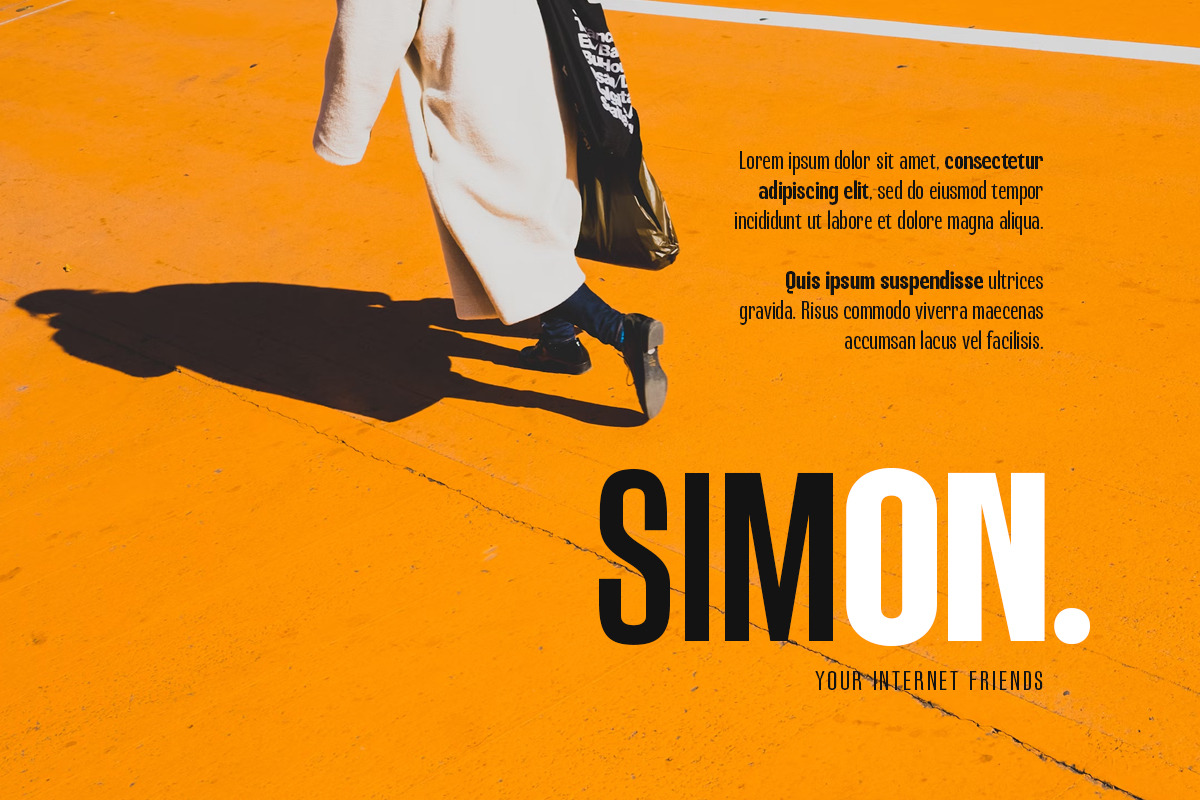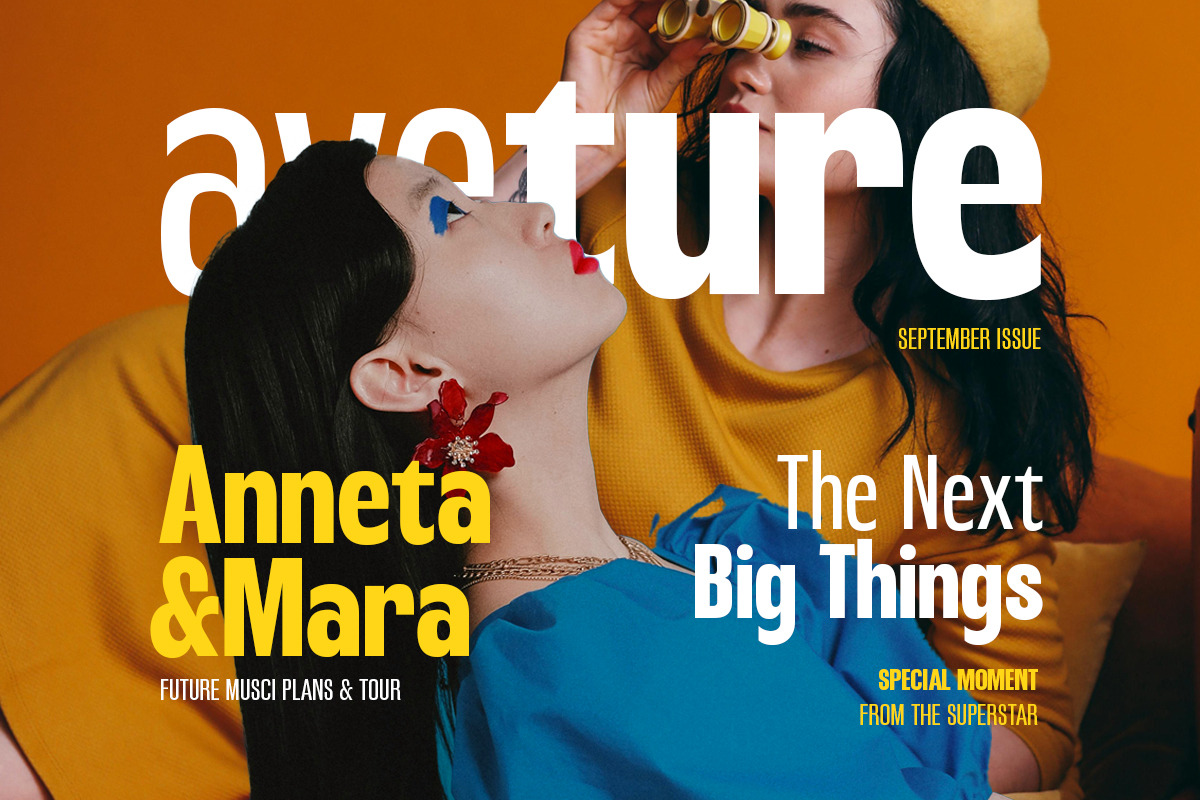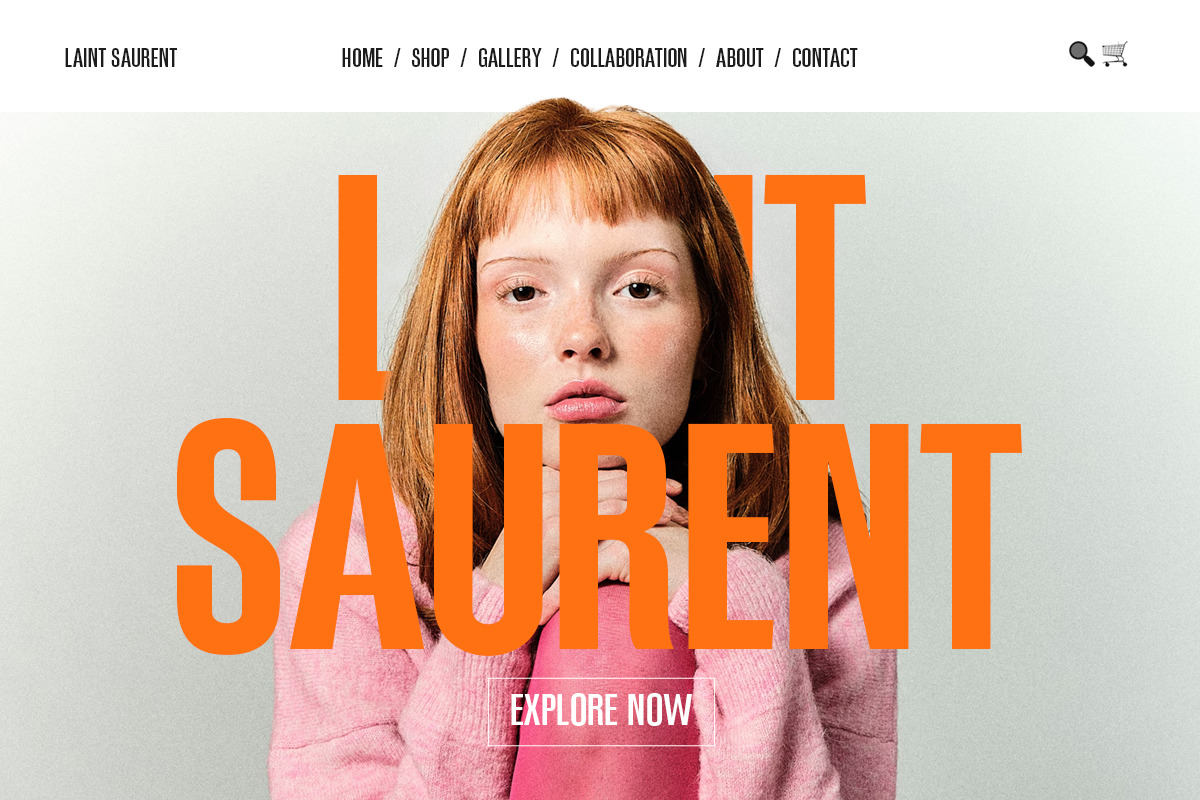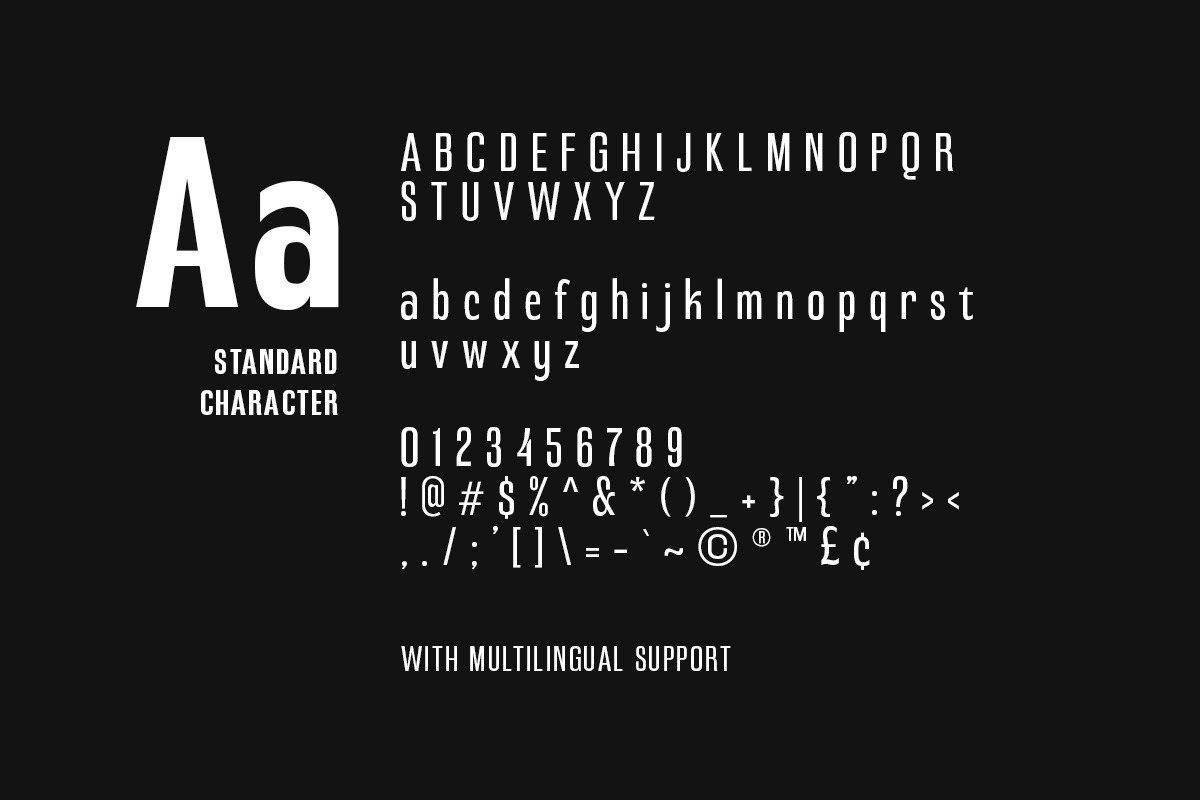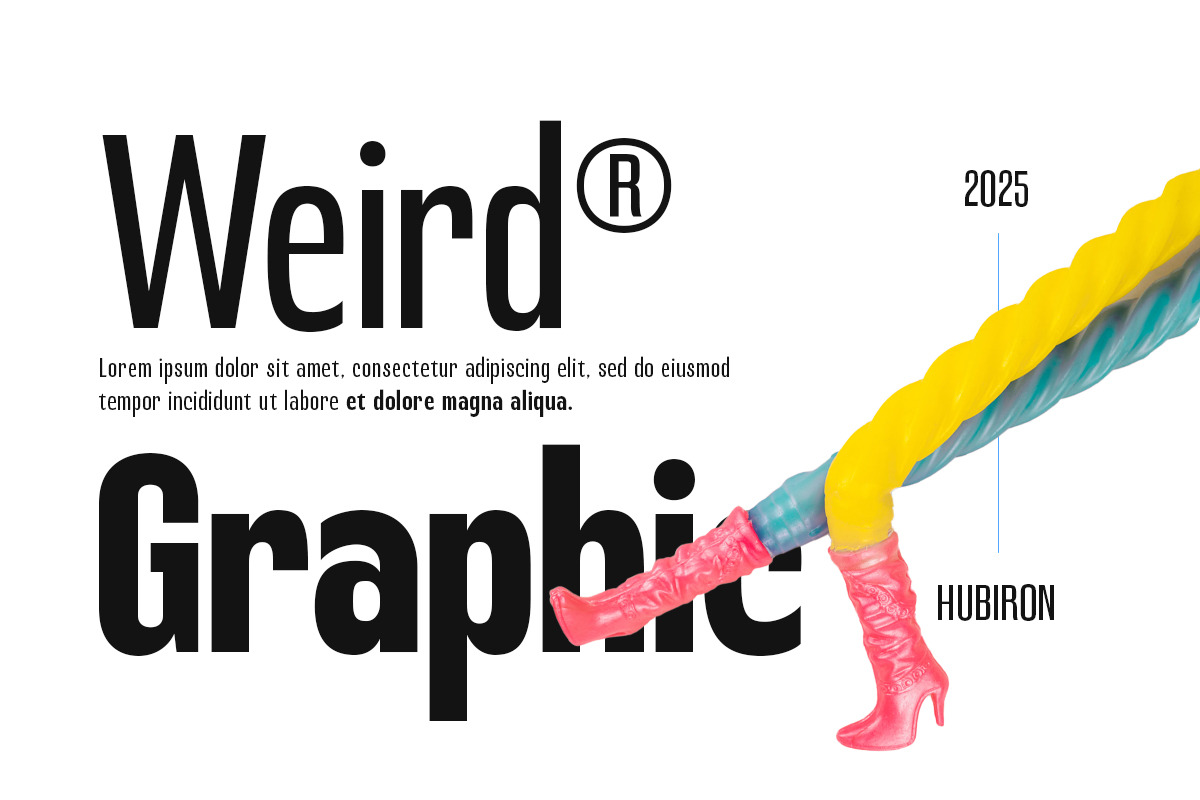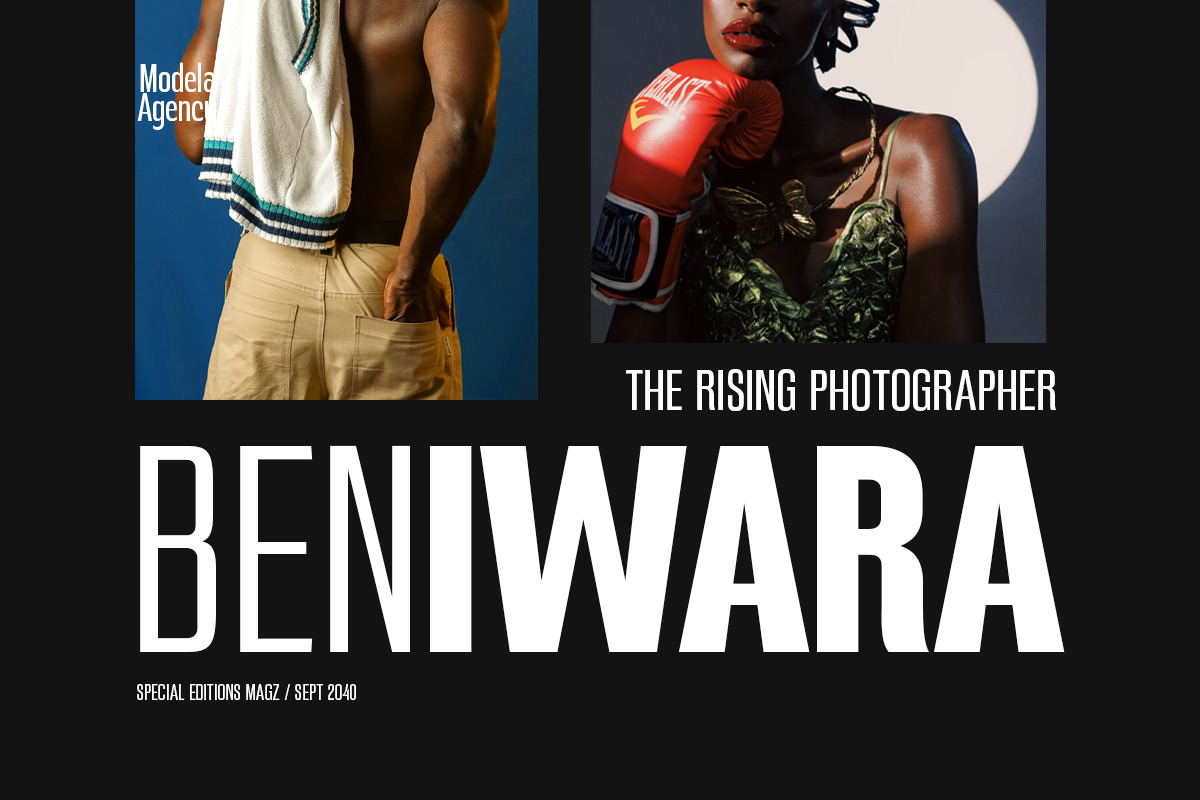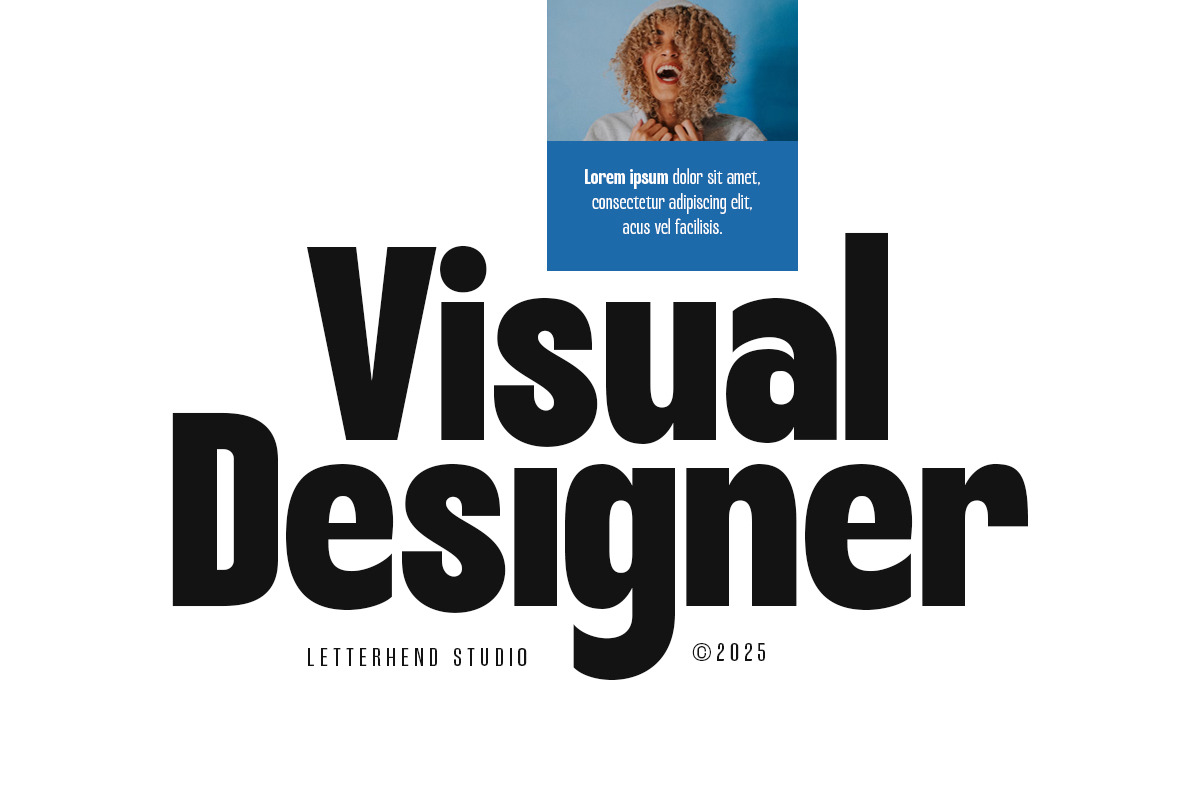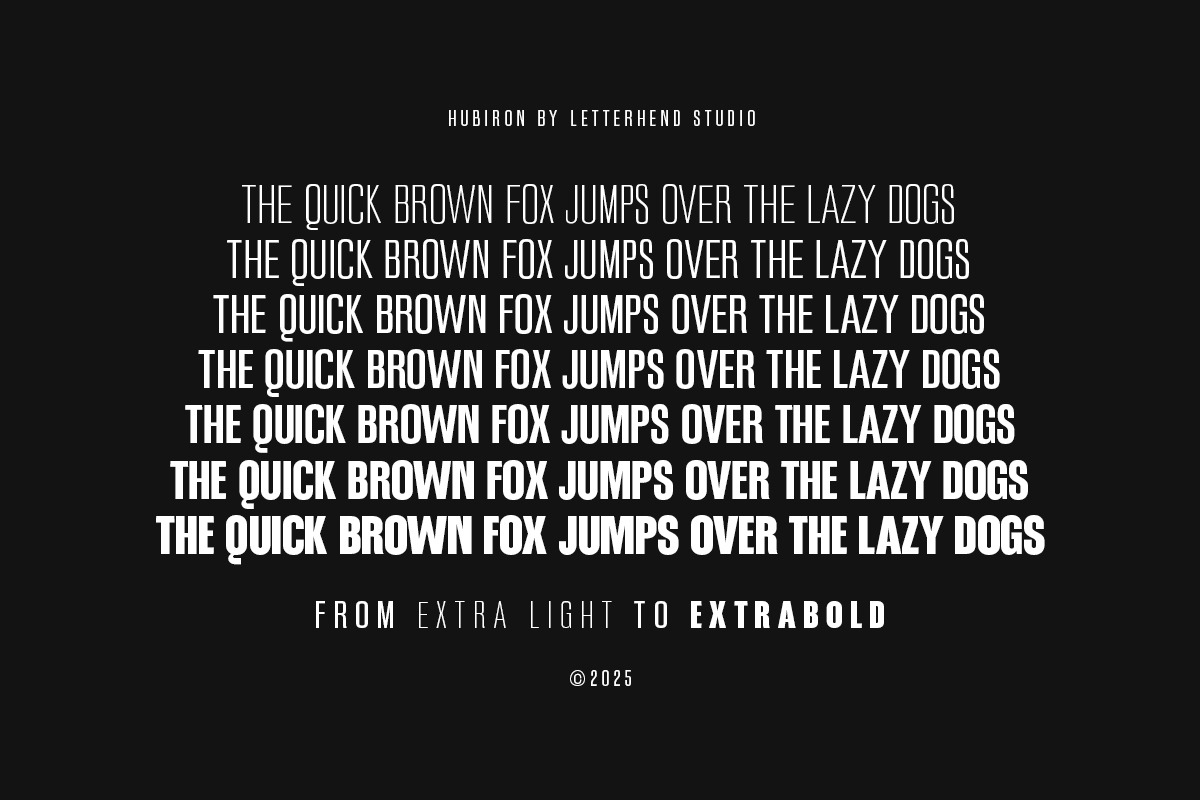
Hubiron Condensed Sans
Hubiron is a bold and modern condensed sans-serif font designed for strong visual impact. With its tall, narrow letterforms and clean geometric structure, this typeface is perfect for high-impact designs that require a contemporary and authoritative presence. The font comes in 7 weight styles, providing flexibility for various design needs.